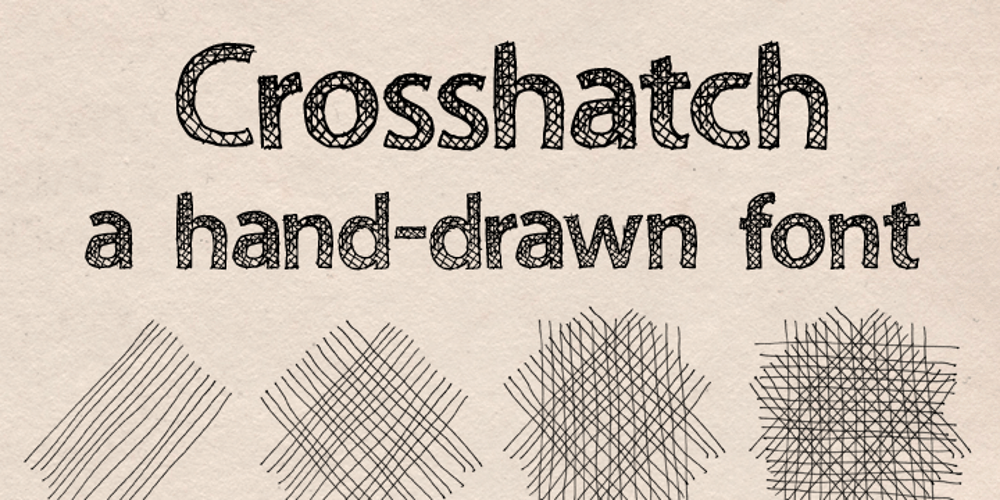
Crosshatch Font Family was designed by Kent Swecker and published by A New Machine. Crosshatch contains 2 styles and family package options. A hand-drawn, crosshatch font suitable for display. It comes in the regular crosshatched version as well as a hollow form. Great for giving your design a handmade touch!